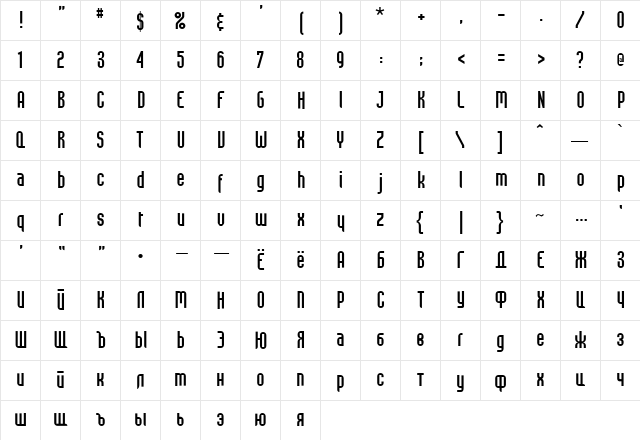
Beast vs SpreadTall Regular
Design Context for Beast vs SpreadTall Typeface
Beast vs SpreadTall is a composed and adaptable typeface that performs quietly and consistently across a wide range of design contexts.